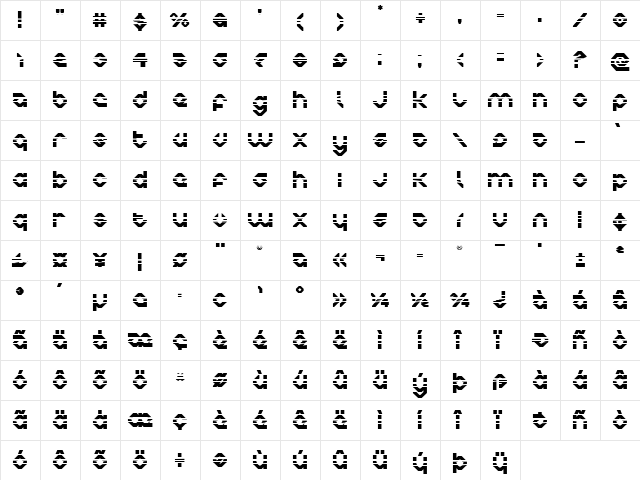
Charlie's Angles Halftone Regular
Design Context for Charlie's Angles Halftone Typeface
Charlie's Angles Halftone is a composed and adaptable typeface that performs quietly and consistently across a wide range of design contexts.